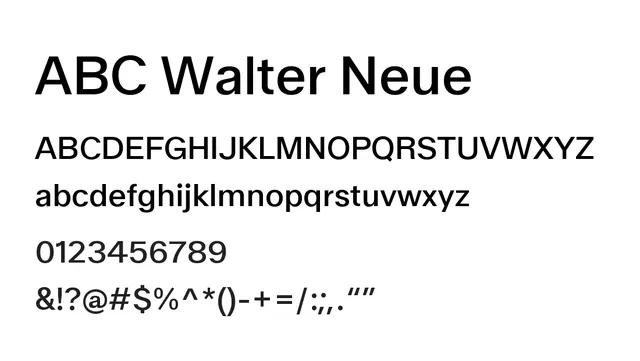
ABC Walter Neue
ABC Walter Neue, modern, geometric
Versatile modern geometric sans-serif with extensive weight range—excellent all-purpose typeface for UI, editorial, and branding.
Highly flexible all-purpose sans-serif suitable for headlines, body text, and UI applications. The full weight spectrum from ExtraLight to ExtraBold provides excellent control over typographic hierarchy. The geometric character is contemporary while remaining readable at all sizes. Works beautifully in both editorial and interface contexts.
Harmonizes with ABC Walter Neue Mono for complete system design, or pairs well with ABC Synt serif for editorial contrast.